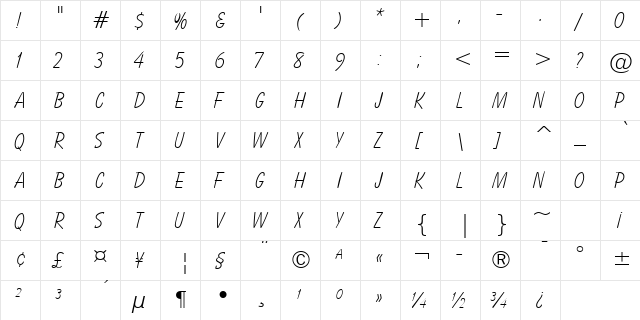
Balloon Lt TL Light
Design Context for Balloon Lt TL Typeface
Balloon Lt TL is a composed and adaptable typeface that performs quietly and consistently across a wide range of design contexts. Its slender proportions lend an understated elegance to any composition.